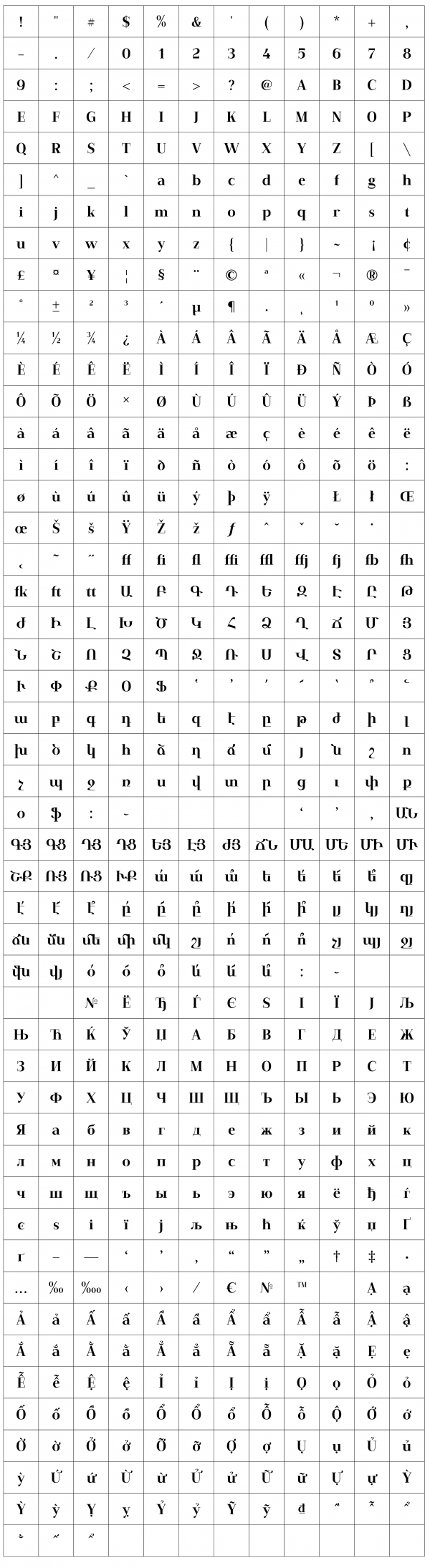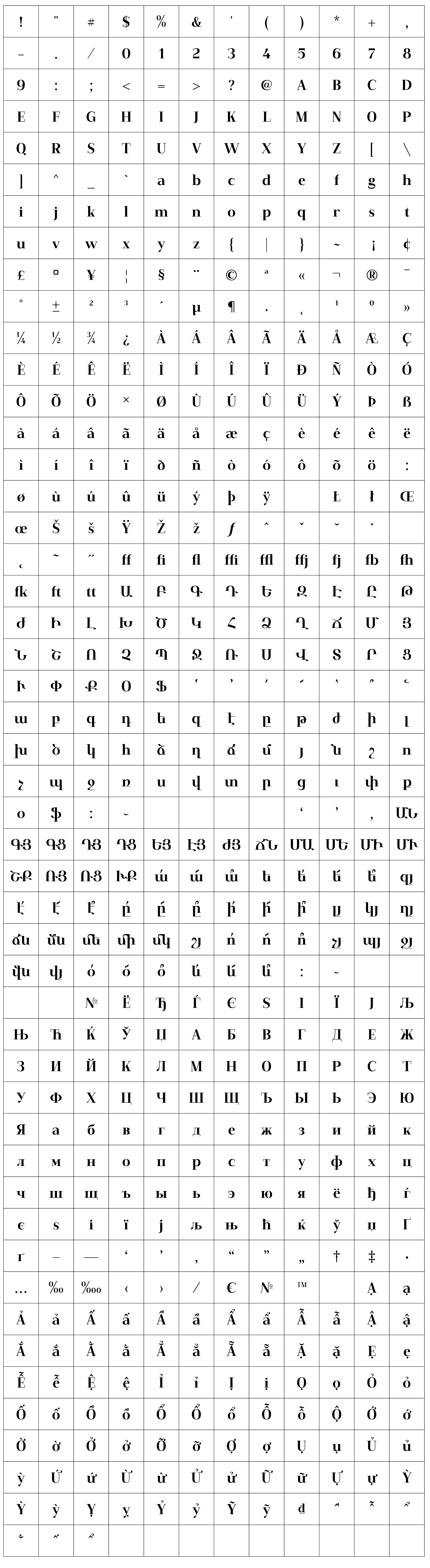
ASF Melina Bold
Designer: Angella Poghosova
The font family includes Armenian, Latin, Cyrillic and Vietnamese alphabet systems.
The font can be used as a text and title font.